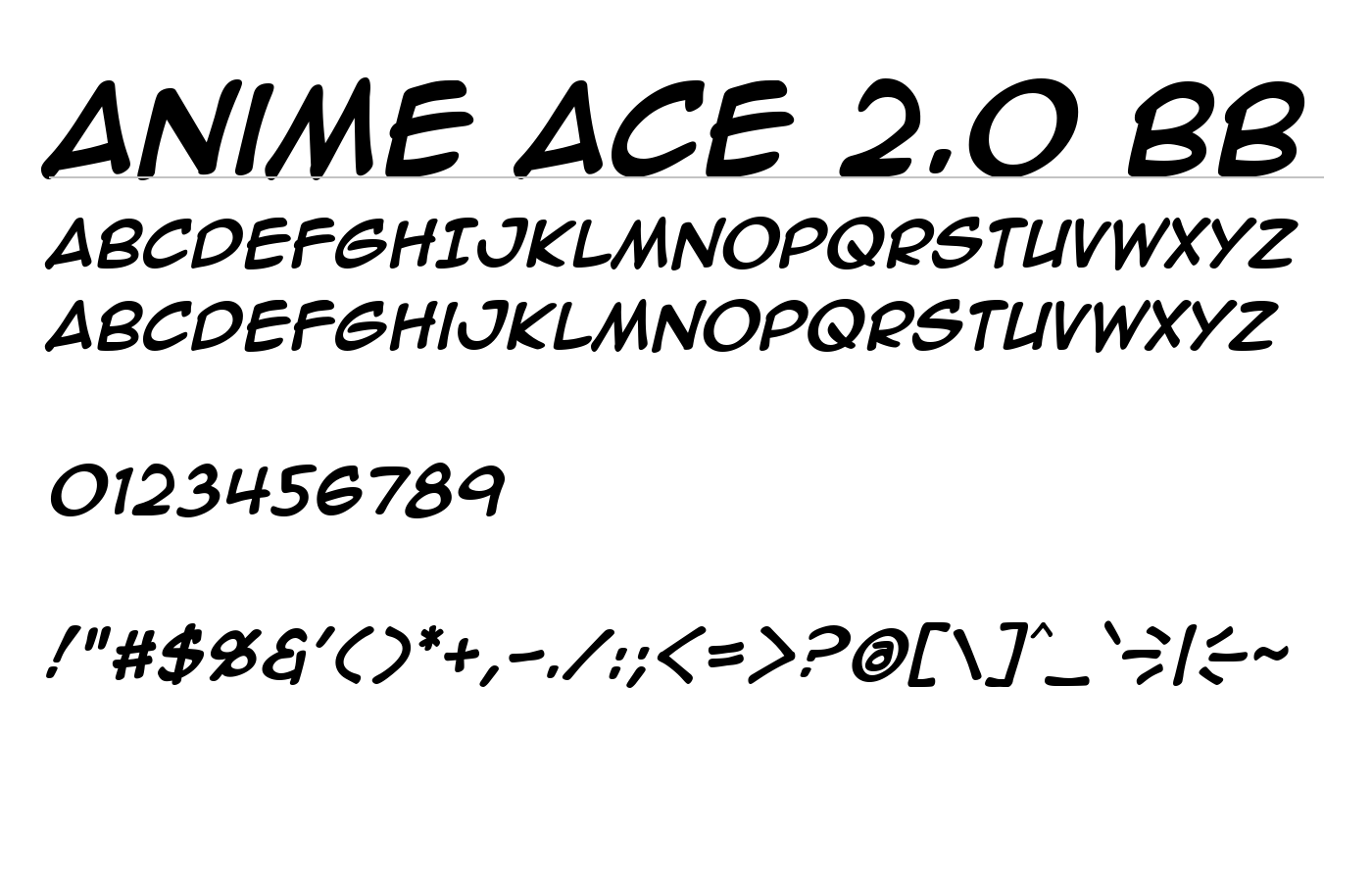
Anime Ace 2.0 BB is a playful, bold sans serif font with a handwritten, comic-style feel. Its rounded, slightly condensed letterforms and lively stroke contrast create an energetic personality, making it ideal for manga, cartoons, youth-oriented branding, and informal designs that want to communicate fun and creativity. This font works well for headlines, logos, and graphic storytelling where a dynamic and approachable vibe is needed.
Anime Ace 2.0 BB Font
About Anime Ace 2.0 BB Font
| Font family | Anime Ace 2.0 BB Font |
| Designer | Nate Piekos |